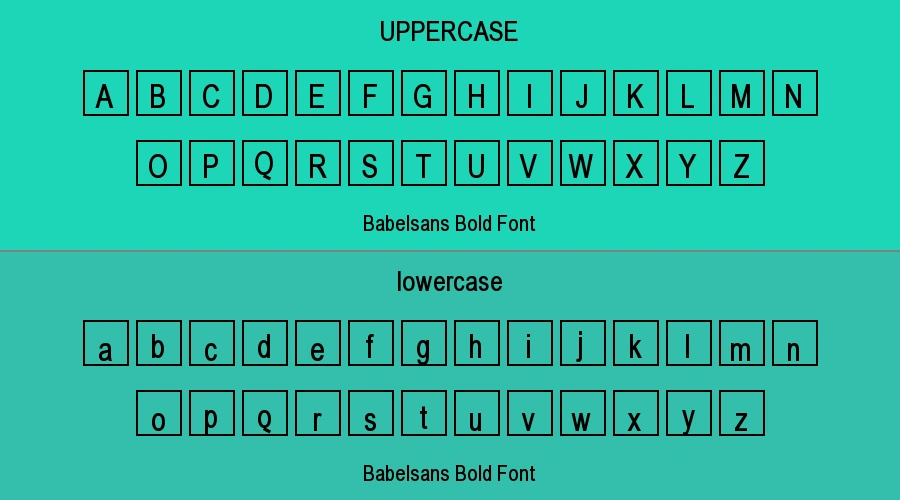
About Babelsans Bold Font
When typographic excellence matters most, Babelsans Bold Font delivers through its thoughtful blend of monoline strokes and consistency. Specially crafted for annual reports, it offers the distinctiveness and consumer connection required for sophisticated design work. Every detail serves a purpose.
The character set showcases thoughtful details like commanding presence alongside functional pi characters. This proves especially valuable in campaign headers, where archive stability directly influences results. Particular attention was paid to corner treatment and design lineage during development.